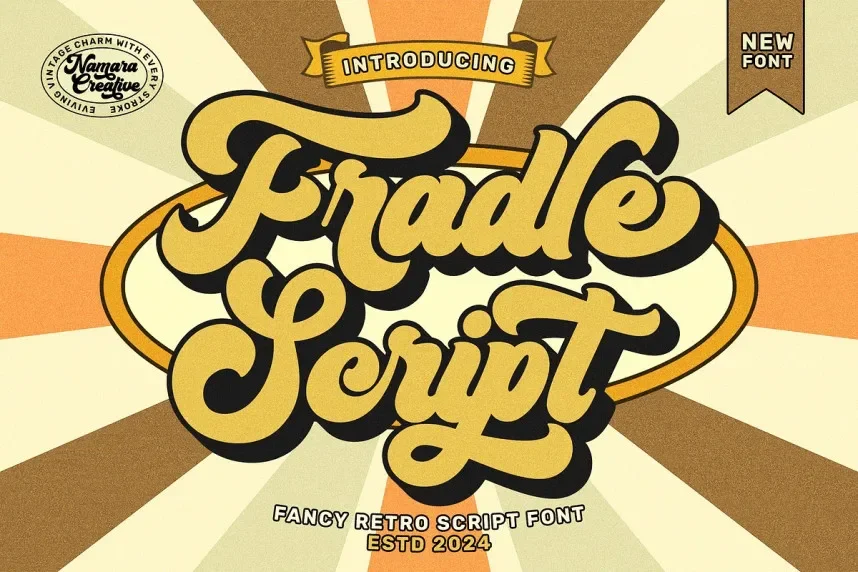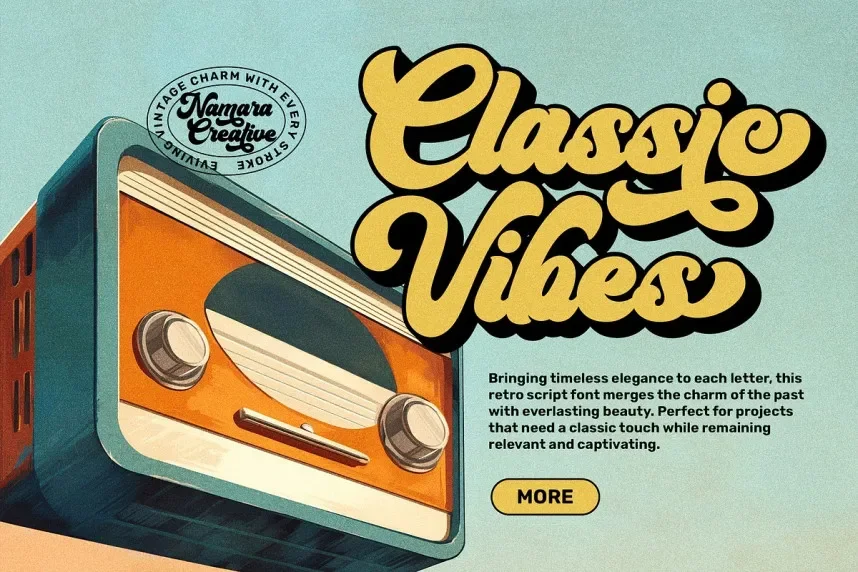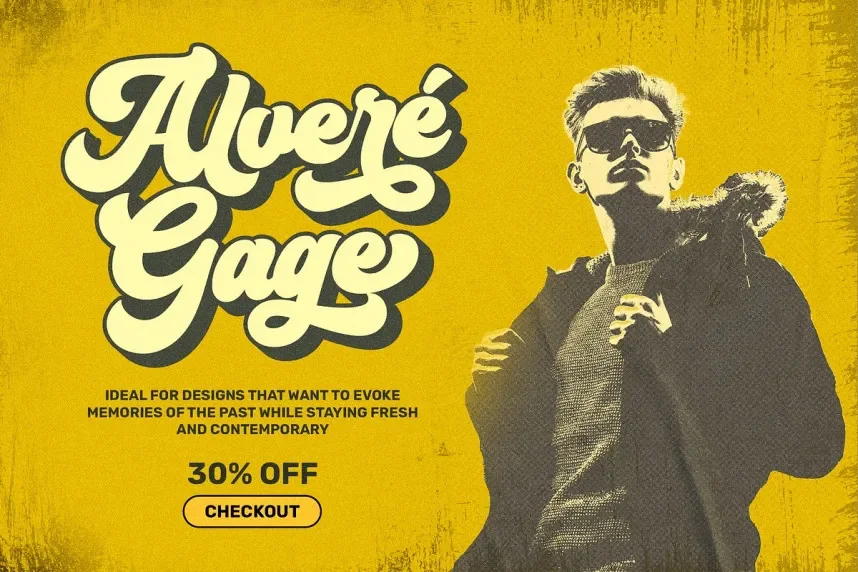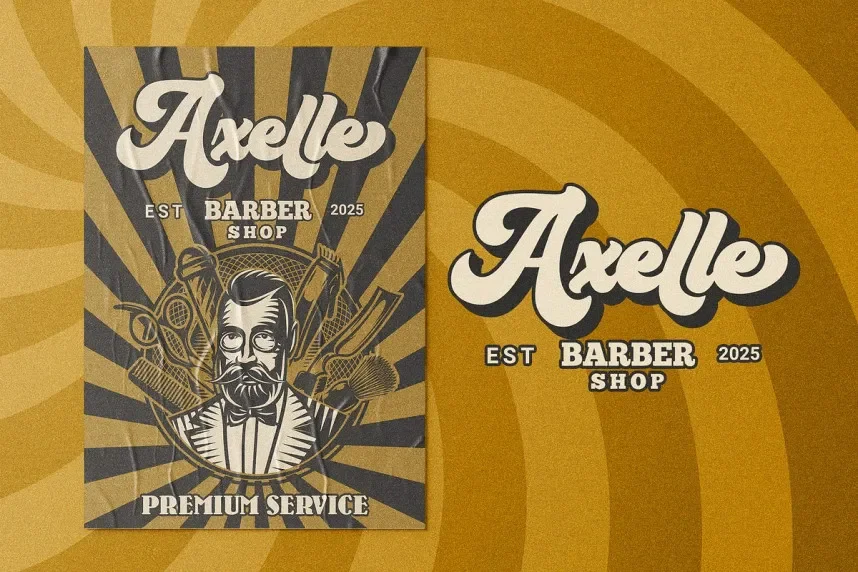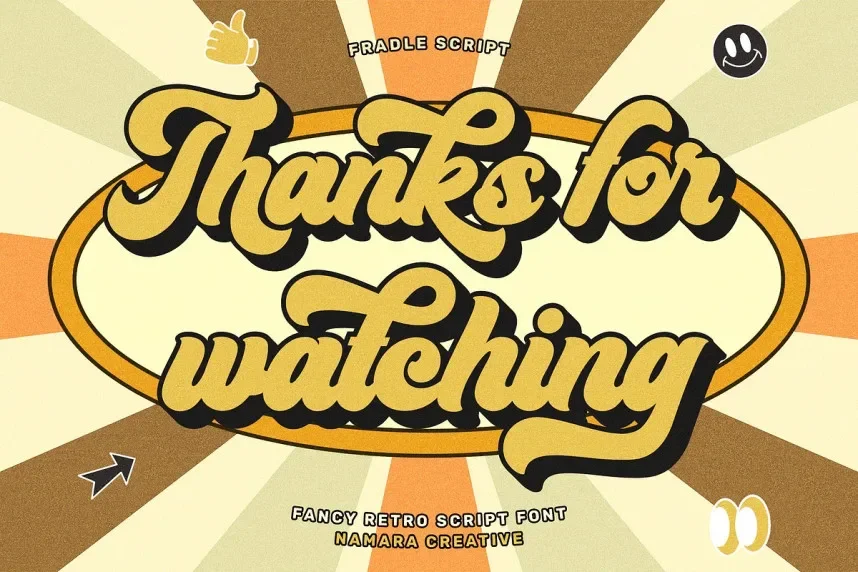
Fradle Font, Menyala Font, Fareza Font, Dreamer Font, and Bedjana Font address a common design need: adding a handwritten, personal tone to branding, invitations, and digital signatures without sacrificing legibility.
These fonts belong to the script and signature category, featuring smooth curves, connected strokes, and natural rhythm. Many versions include stylistic alternates, ligatures, and swashes that help designers shape unique wordmarks or event titles. Their thin-to-thick stroke shifts mimic real pen pressure, giving each typeface a human feel suitable for stationery and social media graphics.
Use these script fonts for wedding invitations, boutique logos, product labels, and Instagram posts that need a soft, personal touch. For balance, pair them with a clean sans-serif for body text or menu layouts. Their decorative forms work best at larger sizes where the curves remain readable.